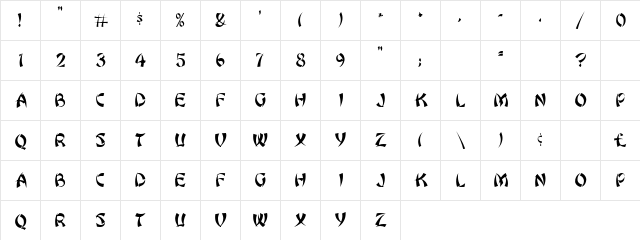
Antrao Small Regular
Design Context for Antrao Small Typeface
Antrao Small is a composed and adaptable typeface that performs quietly and consistently across a wide range of design contexts.